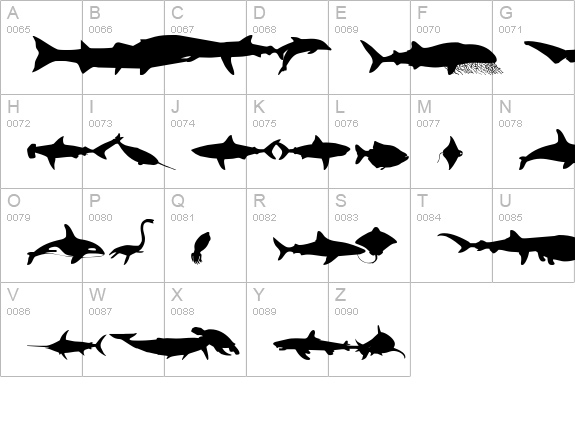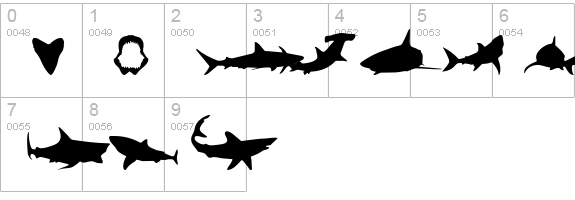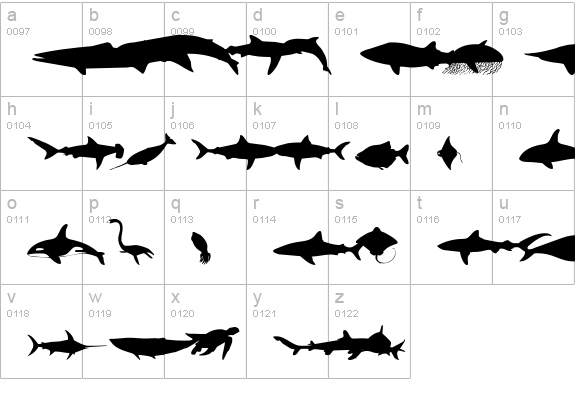
Giants of the Sea Font Details
Introducing Giants of the Sea font, a majestic and powerful typeface inspired by the grandeur of the ocean's giants. This unique font captures the essence of strength and enormity, making it perfect for projects that require a bold and commanding presence. With its intricate details and impressive design, Giants of the Sea font will make your text stand out and leave a lasting impression on your audience. What's even better is that Giants of the Sea font is completely free to download at FontsMarket.com. Yes, you read that right - this exceptional font is available for you to use at no cost, making it a valuable addition to your font collection. So go ahead, unleash the power of Giants of the Sea font in your designs and let your creativity soar to new heights!